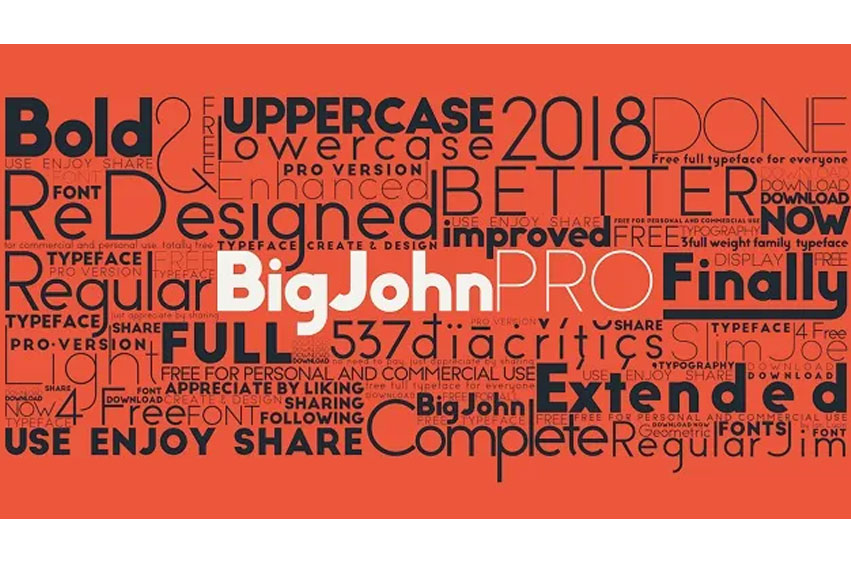
Big John Pro Font
Big John Pro Font is an eye catching typographic harmony in multiple styles, designed by Ionyc Type and shared in various places!You may know both of the Big John and Slim Joe fonts which you have probably learned so far, while this new medium weight font, Regular Jim is just another step in that direction.
With a medium weight presence and lowercase letters as well, within!
Why is it that a come-complete typeface has been created no the Modern Geometric Sans Serif with all-cap characters?